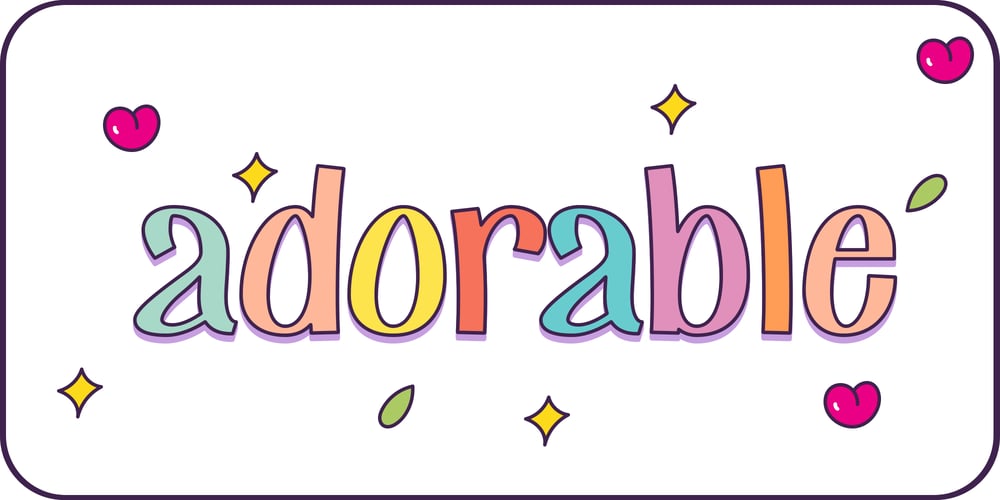
Adorable Font Family was designed by Dain Choi and published by DainType. Adorable contains 3 styles and family package options. ‘Adorable’ has a happy mood. It also feels lively because you can feel the rhythm in the strokes. This typeface is suitable for any place where a happy atmosphere is needed, such as printouts for children, gift cards, children’s clothes, birthday cards, and cheerful advertisements. It contains Latin extended characters.